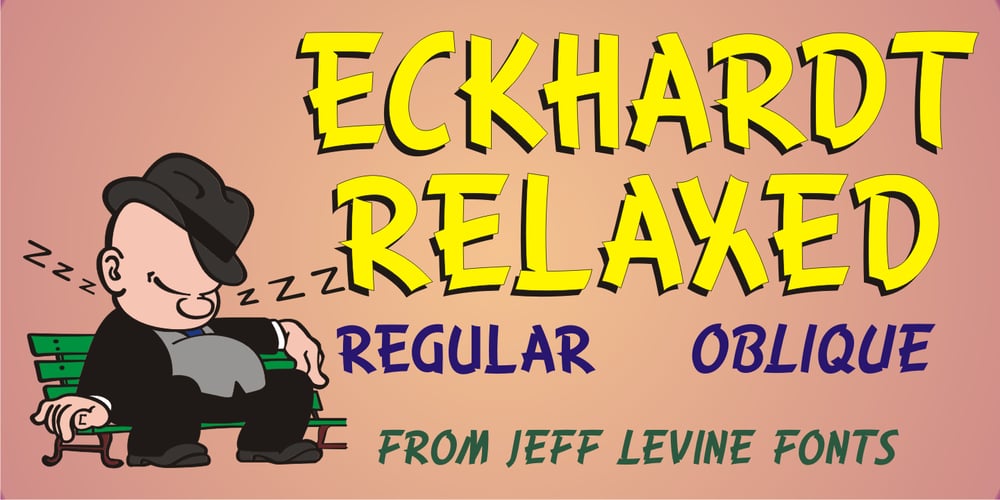
Eckhardt Relaxed JNL
Eckhardt Relaxed JNL font
Eckhardt Relaxed JNL Font Family was designed by Jeff Levine and published by Jeff Levine. Eckhardt Relaxed JNL contains 2 styles and family package options. Eckhardt Relaxed JNL was modeled from an example of a casual, hand lettered alphabet from a page of a vintage textbook. This style of freehand lettering always lends itself well to posters, show card and sign work, but is equally at home in ad design or titling. The typeface is an addition to the group of type styles inspired by sign lettering, and is named for Jeff Levine’s good friend, the late Al Eckhardt; whose shop turned out quality hand lettering from 1959 until his passing in 2005. Eckhardt Relaxed JNL is available in both regular and oblique versions.